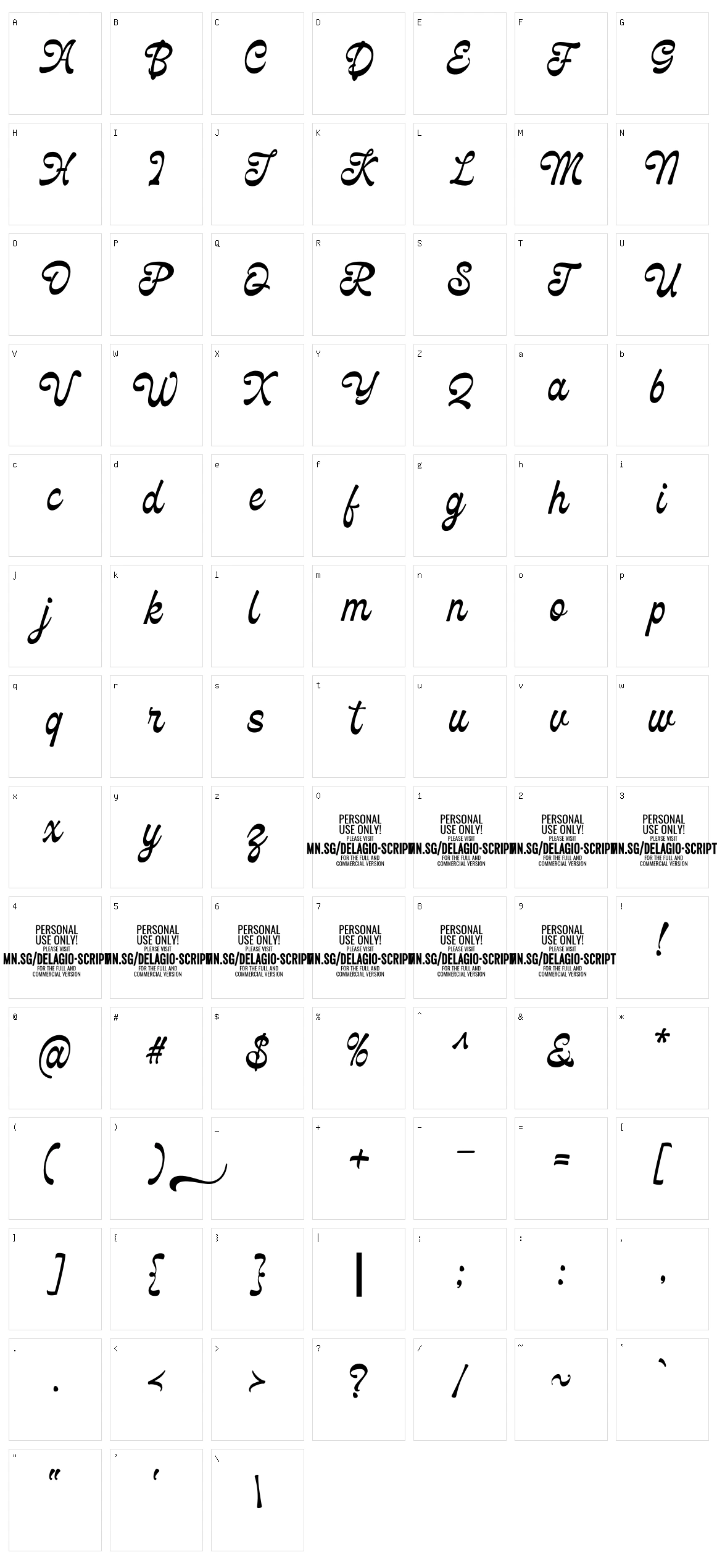
Delagio Script is a calligraphic font that combines cursive elegance with a funky, innovative edge. This retro-inspired font is both creative and heavy, making it perfect for designs that require a unique and playful touch. Delagio Script is ideal for projects that seek to convey a sense of fun, humor, and originality.
The creation of Delagio Script traces back to a lucky discovery of a vintage magicians' promotional posters. The unique blend of whimsy and elegance in Delagio's lettering were captivating enough to form the base of a typeface that embodied the distinctive charm of entertaining calligraphy strokes. Thus, Delagio Script was born, encapsulating the spirit of serendipity and the magic of a forgotten world.
Use underscores _ to make swashes under words.
Example: Magician_
The Delagio Script font family features four styles that cater to a wide range of design needs: Thin, Regular, Bold, and their respective Italics. These distinct options allow you to create eye-catching compositions that capture the essence of innovation while remaining rooted in vintage aesthetics.
Equipped with advanced OpenType functionality, Delagio Script ensures top-notch quality and provides you with full control and customizability. The font includes stylistic alternates, ligatures, and other features to make your designs truly unique and engaging.
Offering extensive lingual support, Delagio Script covers all Latin-based languages, from Northern Europe to South Africa, from America to South-East Asia, and includes all the characters and symbols required for your creative projects, such as punctuation and numbers.